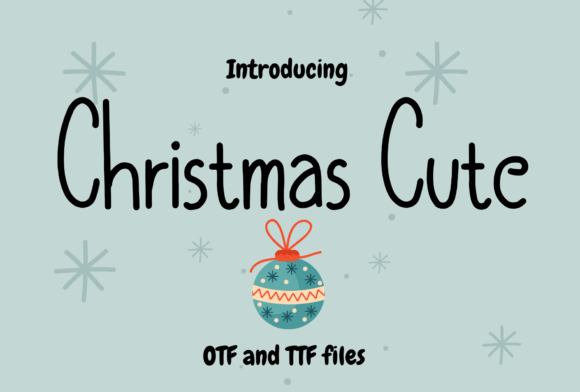
Get Ready to Fall in Love with the Christmas Cute Font
As a designer, have you ever found yourself sitting in front of a blank page, staring at a blank canvas, waiting for inspiration to strike? It’s a moment we’ve all been in, and it’s exactly these moments that we wish we had the perfect tool to spark our creativity. For those who love creating festive and fun content, we’re excited to introduce you to the Christmas Cute Font – a delightful handwritten font that’s sure to put a smile on your face.
The Christmas Cute Font is an exceptionally adorable handwritten font with a delightfully simple style, making it a perfect choice for educational materials, presentations, advertising, illustrations, and a wide range of versatile applications. Whether you’re a seasoned designer or a creative enthusiast, this font is a valuable addition to your toolkit. Its versatility and charm make it an ideal choice for designers looking to add a touch of warmth and personality to their projects.
Christmas Cute Font Key Features
- Unique Characteristics: Whimsical, playful, and festive design elements, perfect for holiday-themed projects.
- Font Style: Cursive, script, and handwritten styles, offering versatility for various design applications.
Review of “Christmas Cute Font”
First of all, I love the overall aesthetic of this font. The ✨ whimsical feel of it is perfect for holiday-themed designs. The curly lines, playful ornaments, and festive vibes all come together to create a delightful visual experience.
Some of the features that work well in this font include:
- The wide range of characters, including uppercase and lowercase letters, numbers, and punctuation marks.
- The flexibility in terms of size and style, allowing for a variety of design options.
- The compatibility with most design software, making it easy to integrate into projects.
- The font may not be suitable for body text, as it can be a bit difficult to read in smaller sizes.
- The ornamentation can be distracting if overused, so it’s best to use it sparingly.
- The font may not be as versatile as some other holiday-themed fonts, which could limit its use in certain projects.
Overall, I think “Christmas Cute Font” is a great choice for designers looking to add a playful touch to their holiday designs. While it may have some limitations, its unique aesthetic and flexibility make it a great addition to any designer’s toolkit.
Getting the Most Out of Christmas Cute Font
To get the most out of Christmas Cute Font, use it in conjunction with festive graphics and colors. This will create a cohesive and eye-catching design. Experiment with different font sizes, colors, and arrangements to achieve the desired effect.
Christmas Cute Font is ideal for creating festive holiday cards, gift tags, and social media graphics. It’s also a great choice for designing holiday-themed party invitations, decorations, and packaging materials.